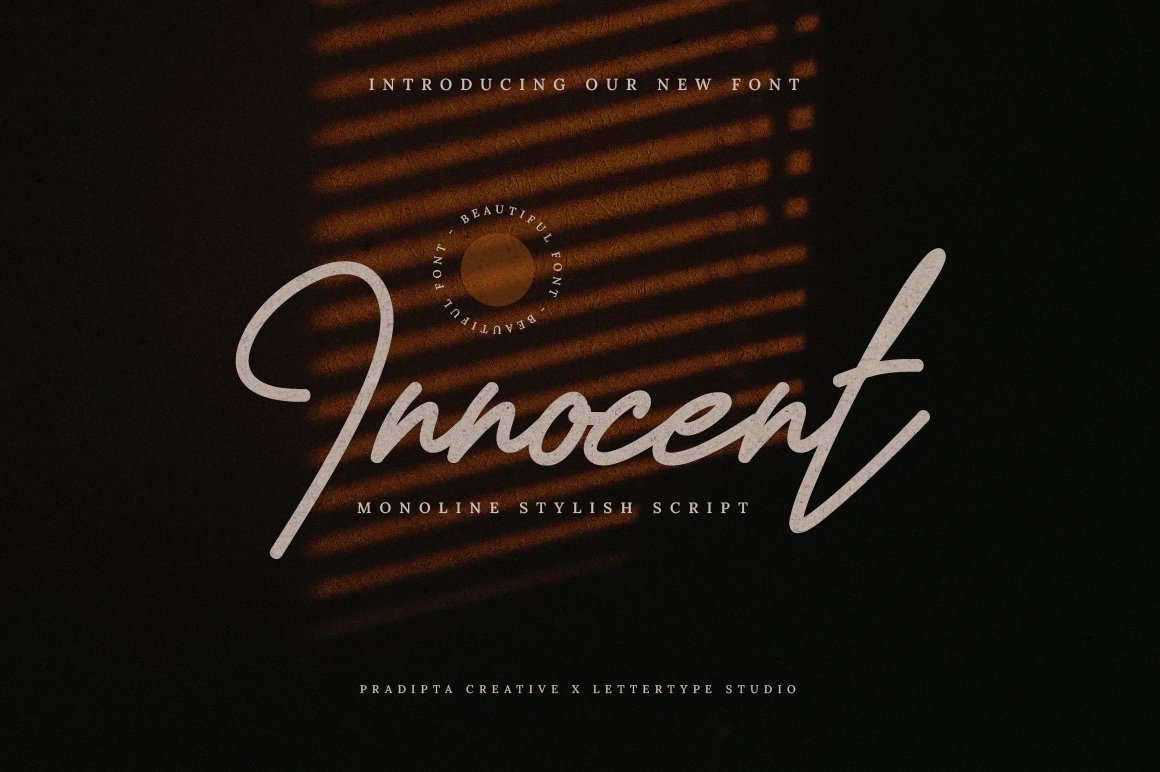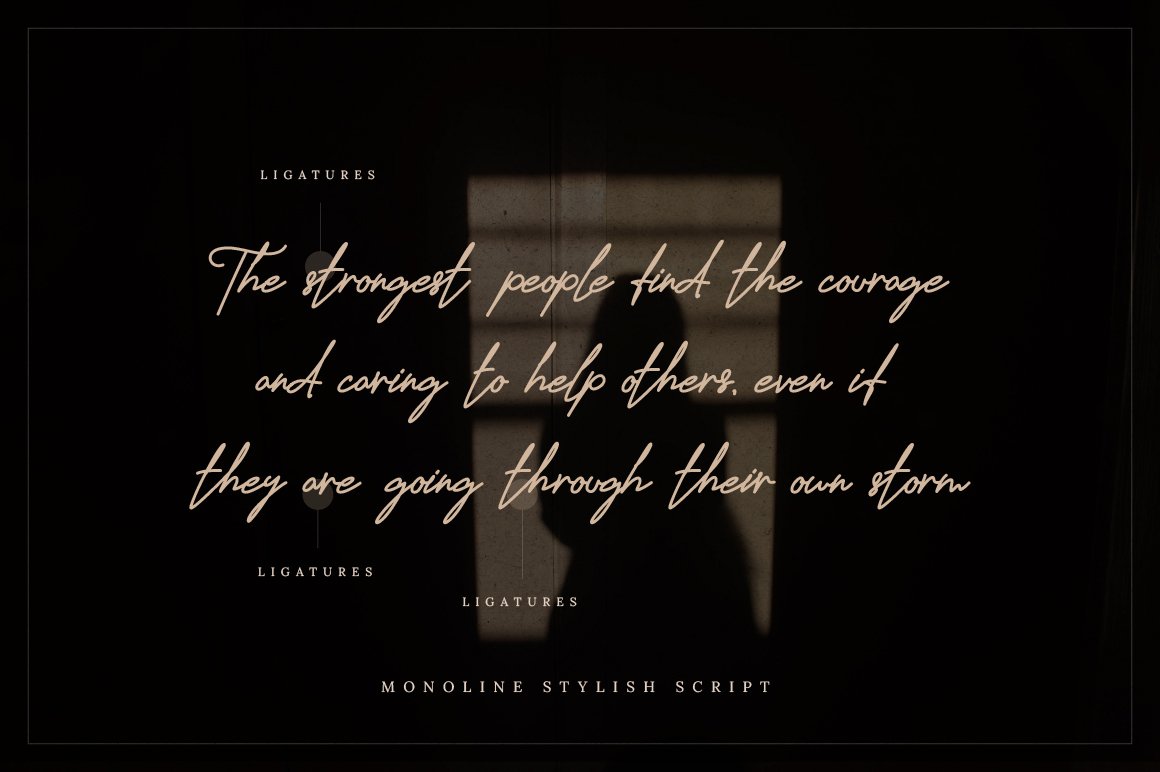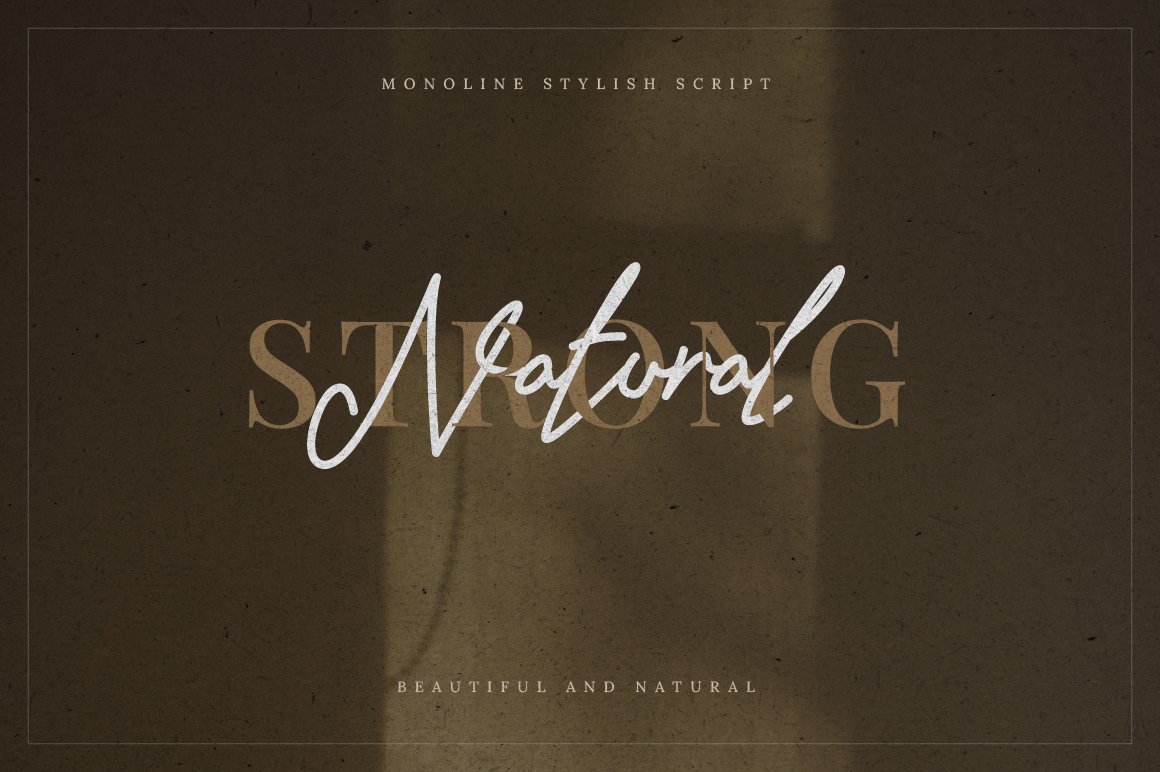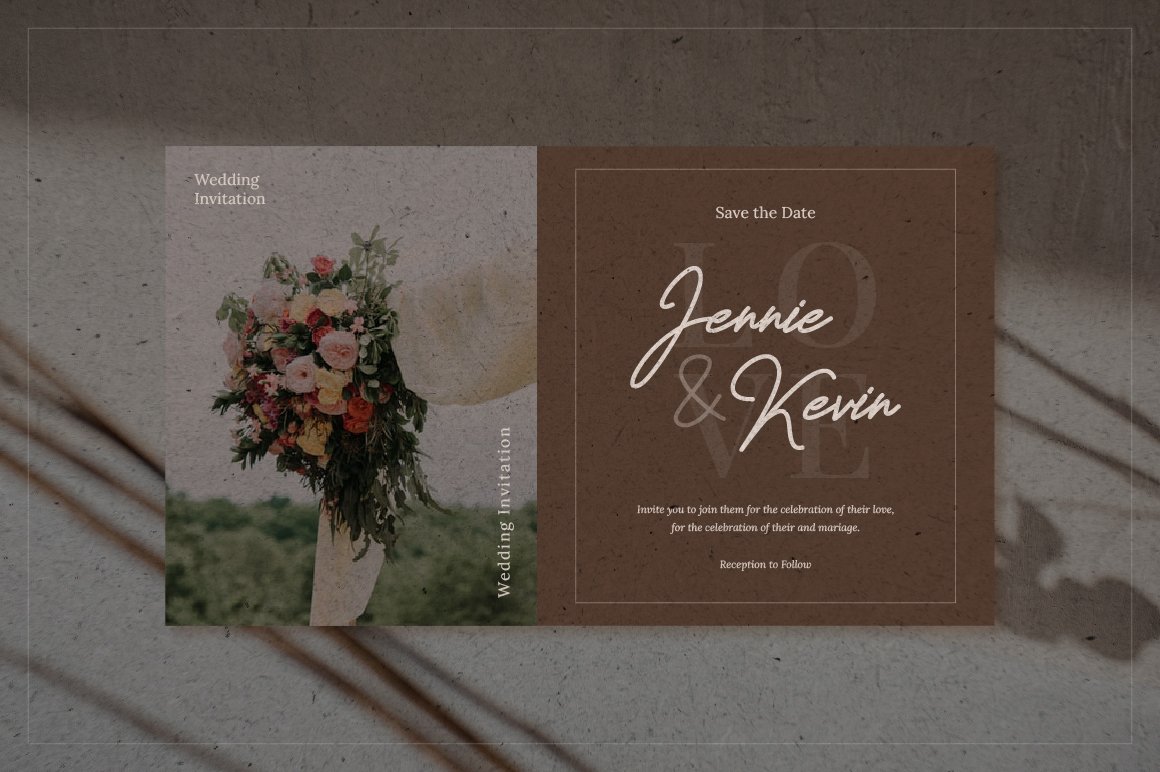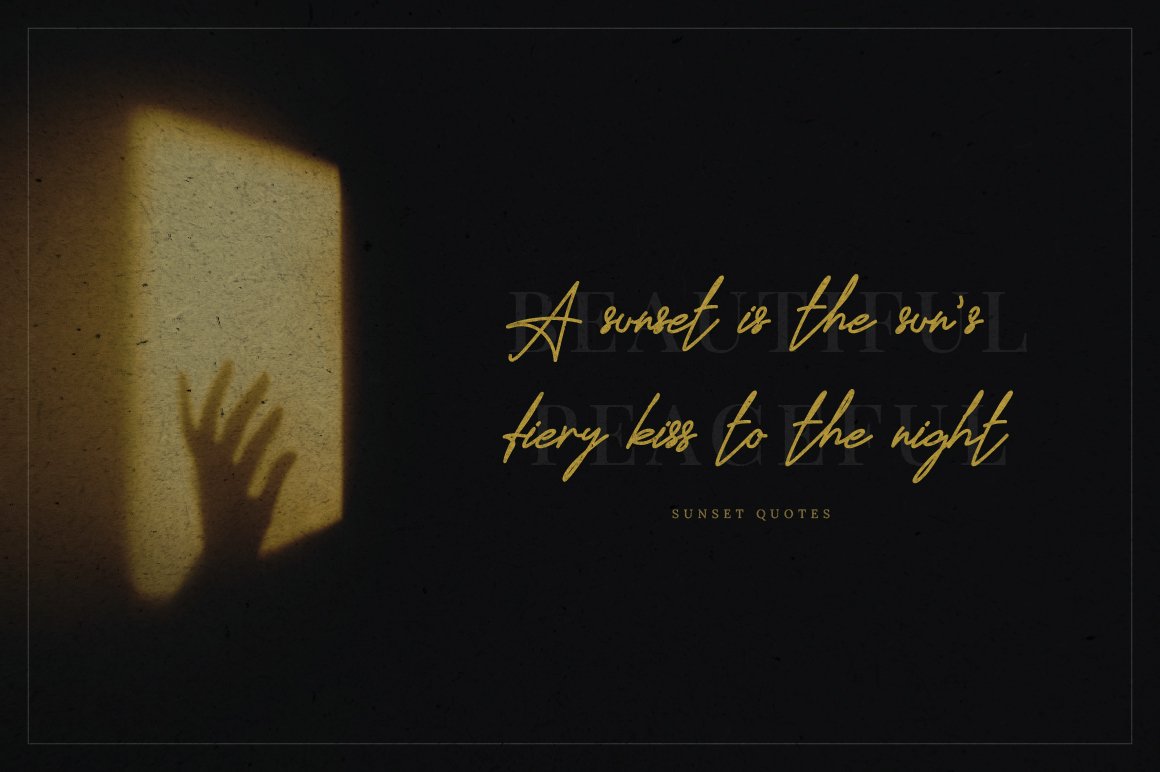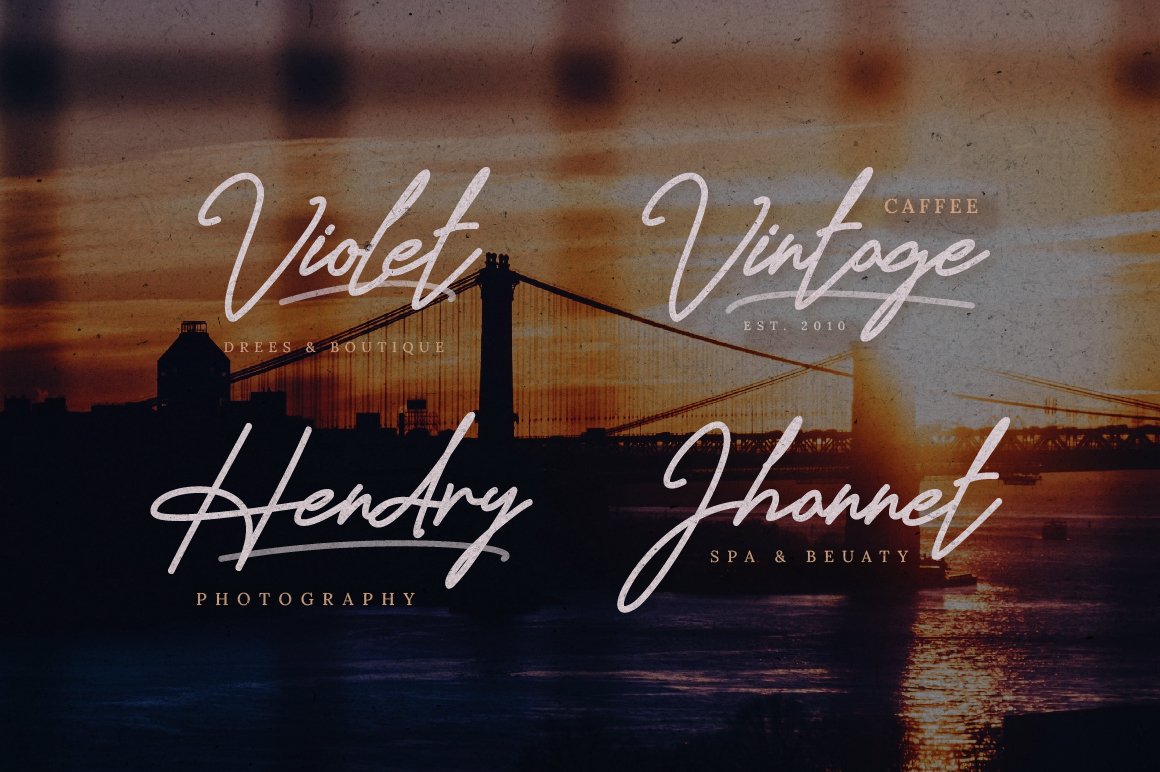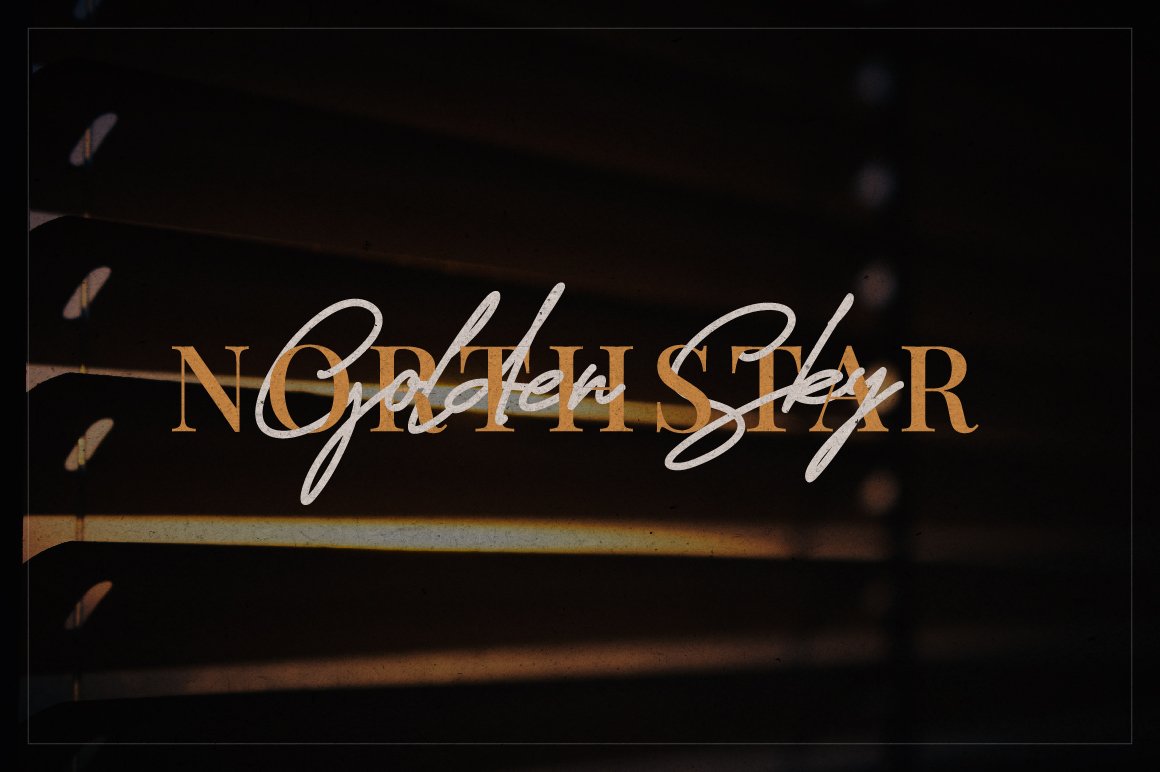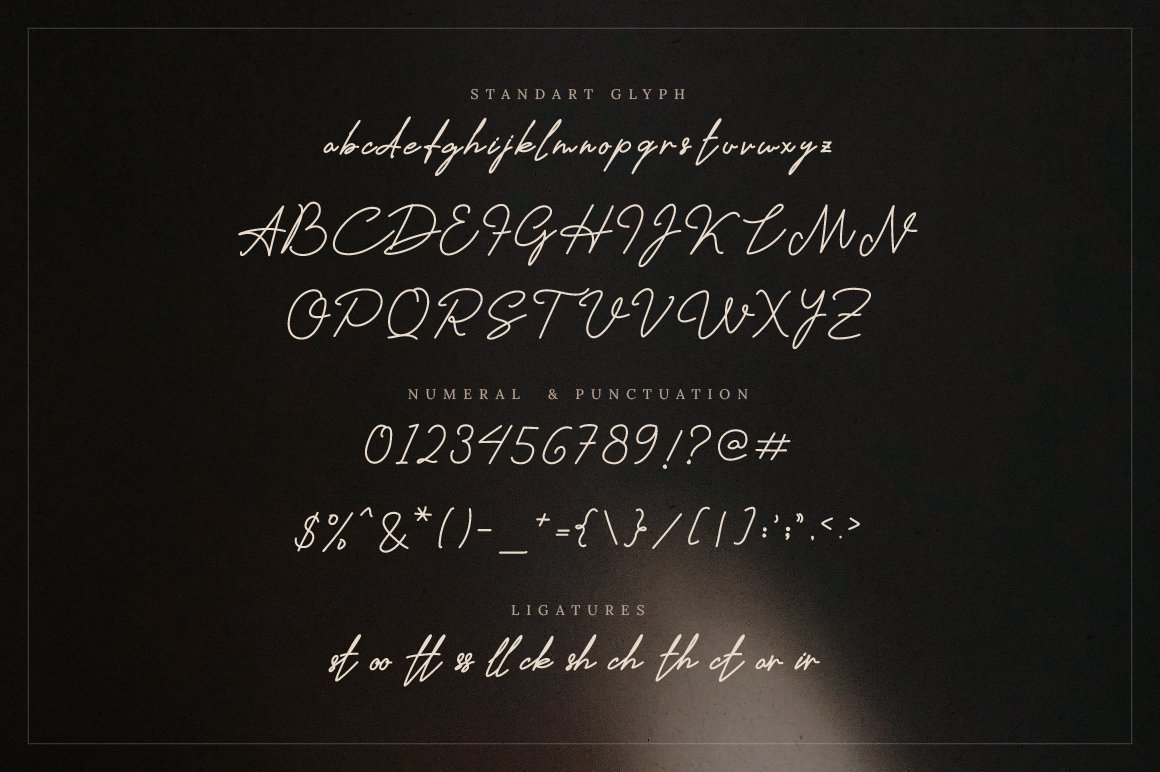
Stylish Monoline Script
Innocent
Innocent Script is a beautiful monoline signature-style font with a sophisticated flow and stylish curves. Its elegant handwritten character brings a fashionable, modern touch to your designs, making it perfect for both personal and professional use.
From photography watermarks, social media posts, and invitations to branding, logos, product packaging, and wedding stationery, Innocent Script adapts gracefully across a wide range of creative projects. Its clean monoline strokes and natural inky feel ensure your designs stand out with timeless elegance and charm.